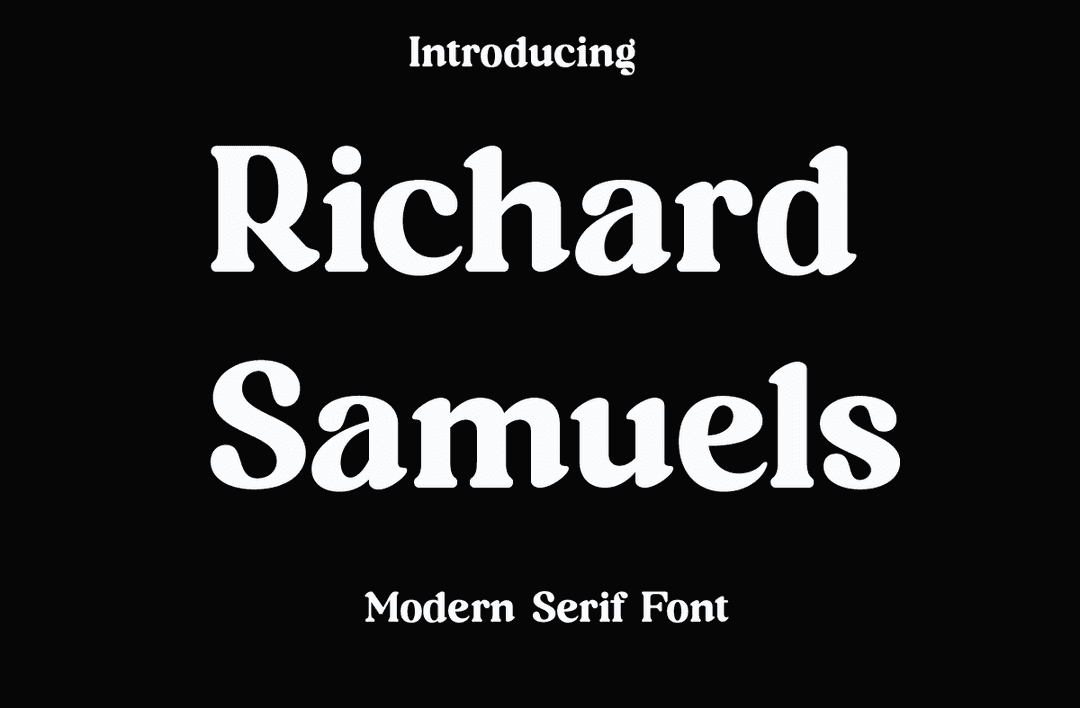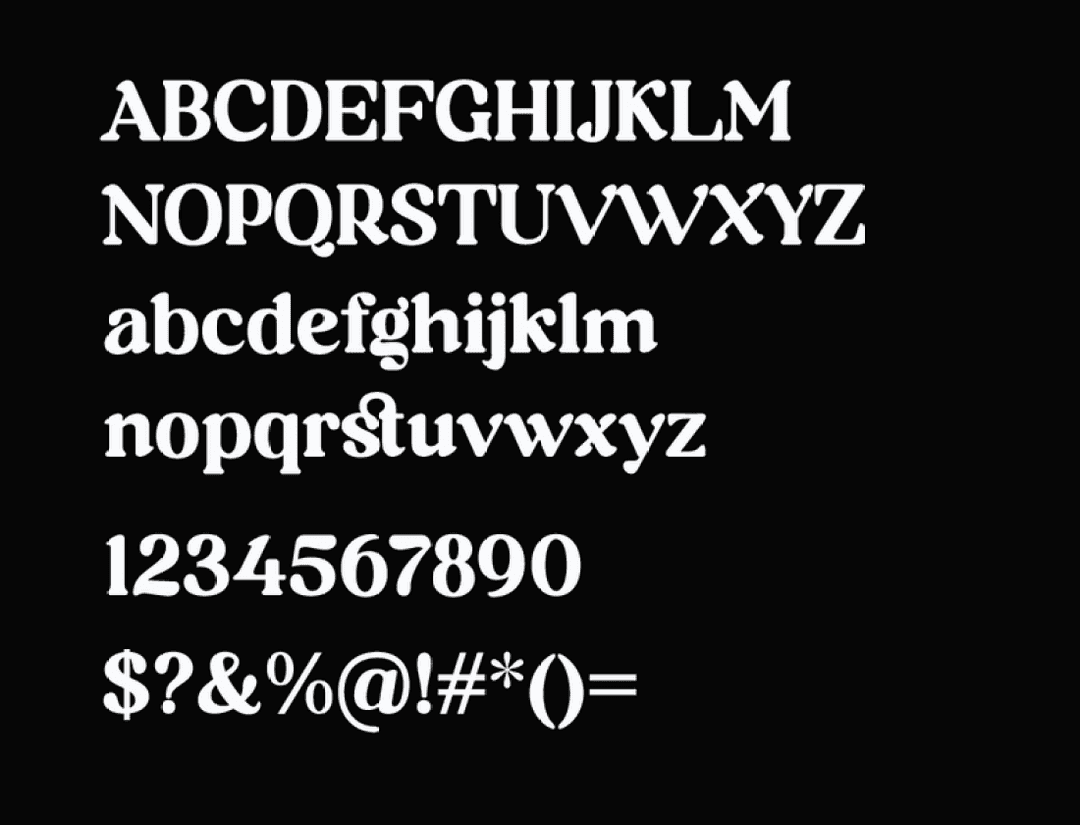
Richard Samuels Font by Storytype is an exquisite modern serif and classic font with its distinct style and modern appearance, perfect for creating elegant logos, movie or book titles, fashion brands clothing lines magazine letters quotes etc. This font can also create sophisticated movie posters and quotes etc.